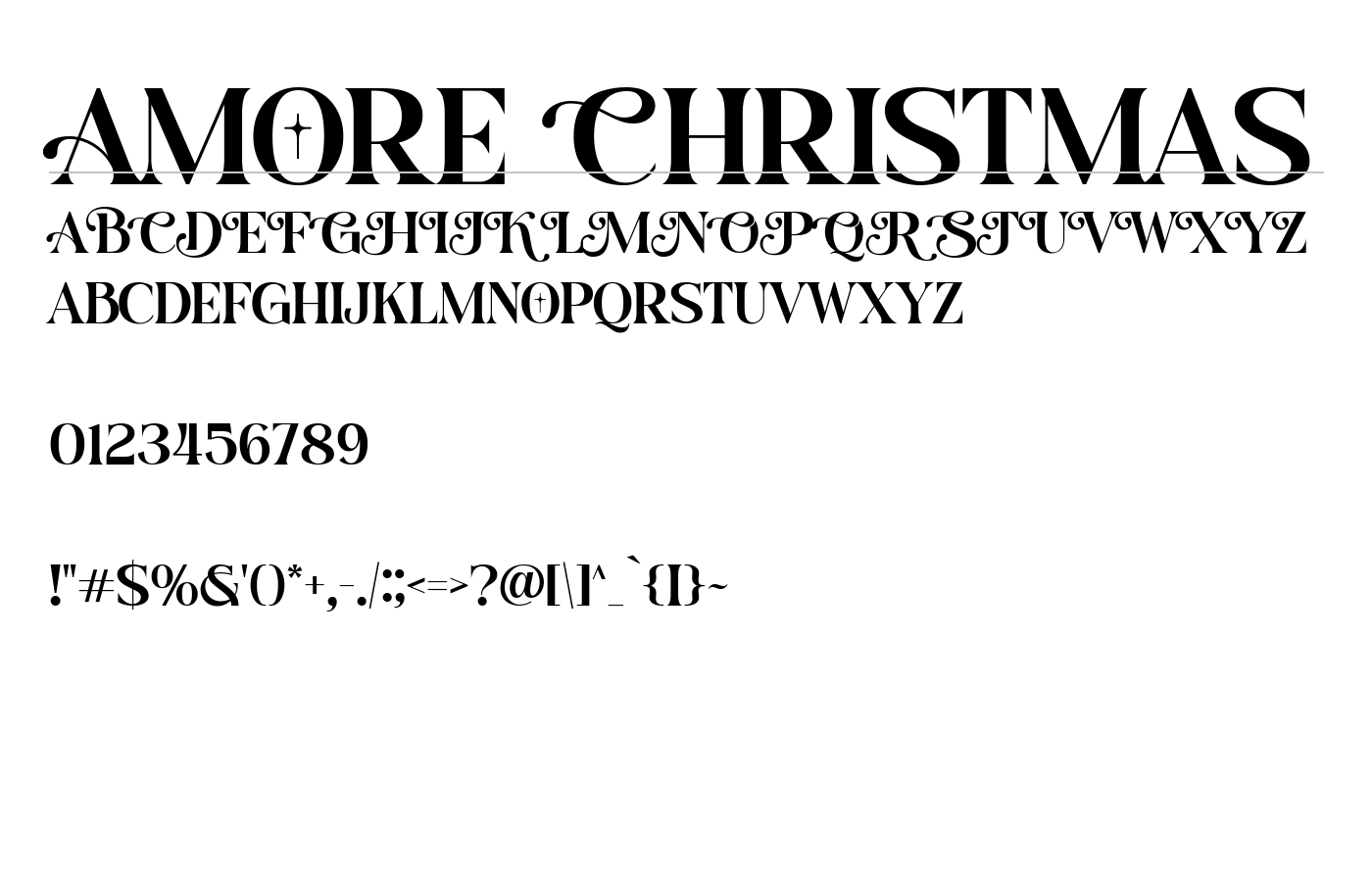
Amore Christmas is an elegant serif font with high contrast between thick and thin strokes, featuring a mix of classic sharp serifs and playful, decorative swirls that add a festive, luxurious touch. Its tall, narrow letterforms with delicate ornamentation make it ideal for holiday-themed branding, elegant invitations, and festive headlines where a sophisticated yet joyful personality is desired. This font works best in large sizes to showcase its intricate details and overall charm.
Amore Christmas Font